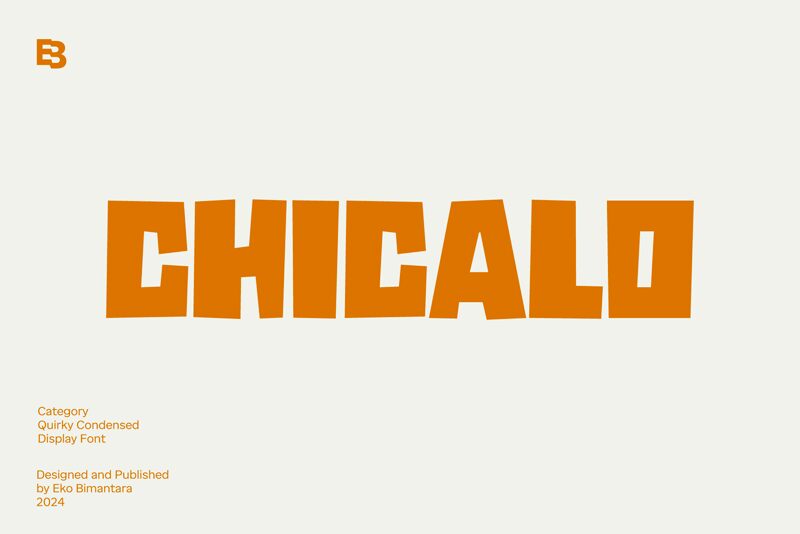
Chicalo
Chicalo font by Eko Bimantara is a grunge-inspired, display typeface designed in a bold cartoon style. This distressed and geometric font borrows the dirty texture of the 70s which adds an urban vibe to its letters. And although informal, this exceptional font still manages to include some decorative details within the structure of its glyphs.
Let Chicalo turn heads on your posters, typographic quotes, inspirational statements, book covers, flayers, etc. Use it for branding agencies or academic institutions and get creative with more art-related projects such as comic books and animation movie titles.